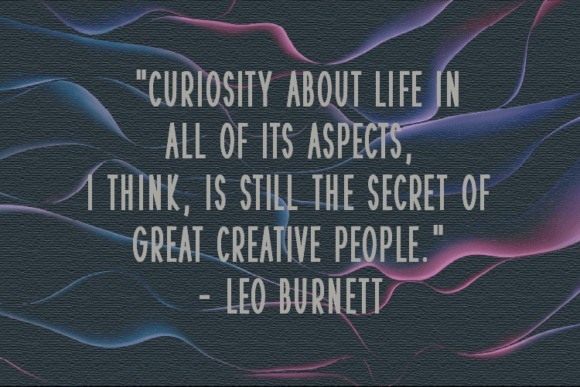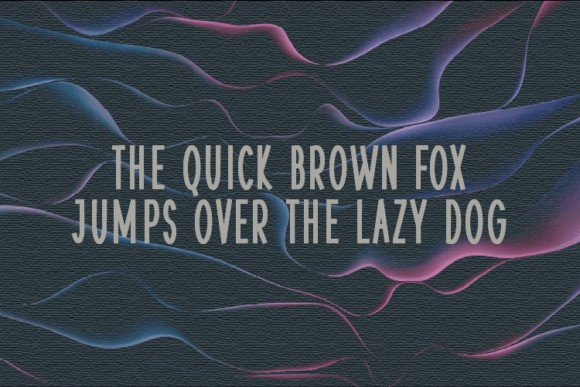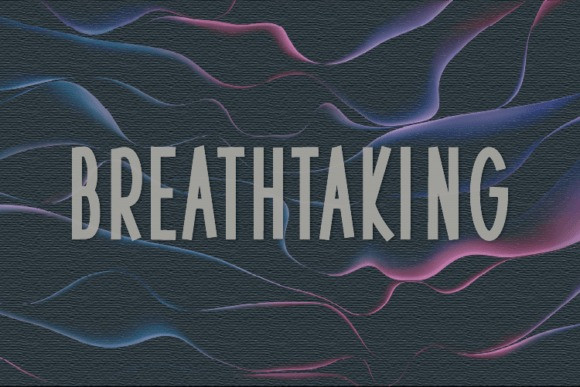
Breathtaking Font
Breathtaking Font is a neat and clean handwritten font. It has a classy, elegant, and modern look that can be used for logos, branding, invitations, stationery, wedding designs, social media posts, and much more!